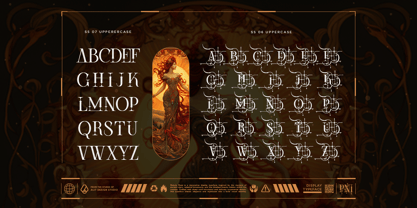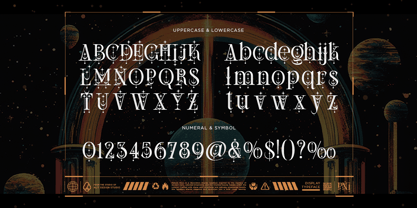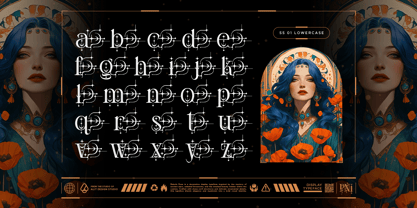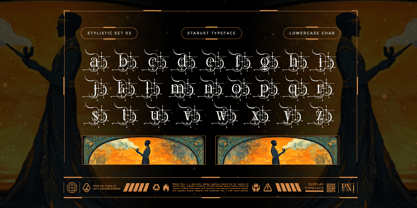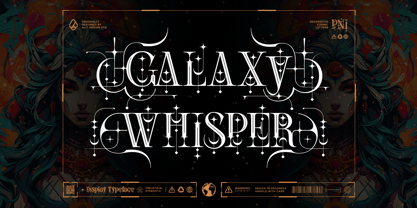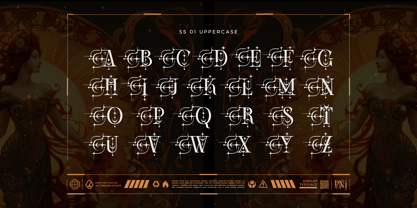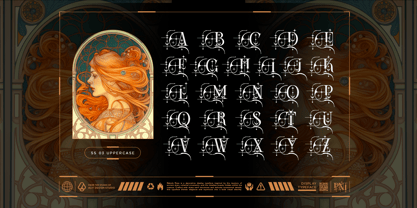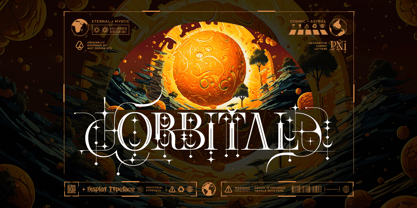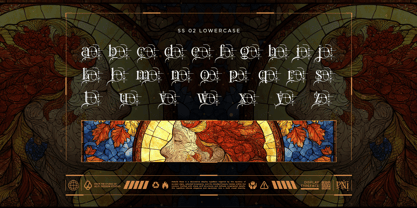
Starust
Starust Typeface – A Celestial Decorative Display Serif
Embark on a mystical journey through the cosmos with Starust Typeface, an intricate, elegant, and highly decorative display serif that blends classical foundations with enchanting, starry motifs. Inspired by the mystery of ancient stars and the delicate beauty of celestial ornaments, Starust is designed to make a bold visual statement.
Where classic serifs meet futuristic elegance, Starust shines. Crafted with a meticulous eye for detail, this font features delicate line-work connections, starry terminals, and crescent moon shapes integrated seamlessly into its letterforms. This unique design language elevates your projects, offering a profound blend of elegance and mysticism.
This typeface isn't just a set of letters; it’s a complete creative toolkit. With a massive 831 glyphs included, Starust provides ultimate flexibility and artistic freedom.
• Massive Variety of Alternates and Ligatures: Starust is packed with extensive stylistic alternates and unique ligatures. This allows you to create truly custom text layouts, ranging from subtle variations to extreme, interconnected compositions where the thin lines create a veritable map of stars.
• Multiple Stylistic Sets: Features stylistic sets from SS01 through SS07. Achieve the perfect level of ornamentation for any design, moving effortlessly from a clean, standard character set to ultra-ornate, flourished options.
• Highly Decorative and Unique: Perfect for when standard serifs are not enough. Use the font to create powerful headers and logotypes that command attention.
• Professional Specs: Includes uppercase characters, lowercase characters, numbers, and symbols. It also features full multilingual support, ensuring global usability for your projects.
Perfect Use Cases:
Starust excels at high-impact display use. It is the perfect choice for:
• Mystic branding and spiritual book covers.
• Esoteric and modern witch aesthetic poster designs.
• Bold apparel and merchandise, especially band t-shirts for metal or ambient genres.
• Unique album artwork and vinyl sleeves.
• Luxury packaging that requires a touch of the esoteric.